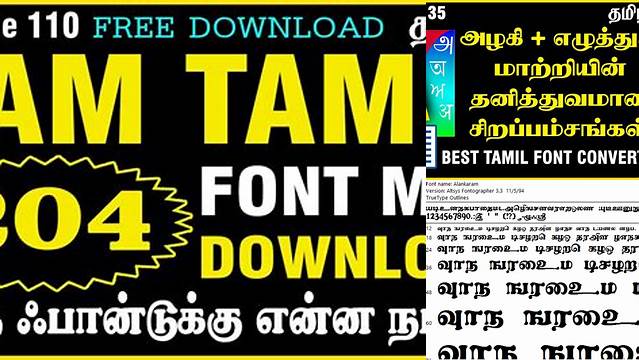
Tamil Fonts For Photoshop CS6: Free Download Guide
Are you looking to enhance your design projects with authentic Tamil typography? Finding the right Tamil fonts for Photoshop CS6 can significantly elevate your creative work, adding a touch of cultural richness and linguistic precision. In this article, we'll explore where to find these fonts, how to install them, and some tips for using them effectively in your designs. Let's dive in!
Why Use Tamil Fonts in Photoshop CS6?
Using Tamil fonts in Photoshop CS6 opens up a world of creative possibilities. Whether you're designing posters, brochures, or digital content, incorporating Tamil script can add a unique and culturally relevant dimension to your projects.
- Cultural Authenticity: Utilizing authentic Tamil fonts ensures that your message resonates with the target audience, respecting and celebrating their linguistic heritage.
- Enhanced Visual Appeal: A well-chosen Tamil font can significantly enhance the visual appeal of your designs, making them more engaging and memorable.
- Improved Readability: Selecting fonts that are clear and legible is crucial for effective communication. The right Tamil font can make your text easy to read and understand.
- Versatility: With a variety of Tamil fonts available, you can find the perfect one to match the tone and style of your design, whether it's traditional or modern.
By incorporating high-quality Tamil fonts, you not only pay homage to the Tamil language but also ensure your designs stand out with a distinctive and professional touch. Whether you’re working on branding, advertising, or personal projects, the right font can make all the difference.
Using Tamil Fonts Effectively in Photoshop CS6
Now that you have your Tamil fonts installed, let's explore how to use them effectively in Photoshop CS6 to create stunning designs:
Incorporating Tamil fonts into your Photoshop CS6 projects can significantly enhance their cultural relevance and visual appeal. By following the steps outlined in this article, you can find, install, and use Tamil fonts effectively to create stunning designs. Remember to choose the right fonts, pay attention to typography details, and troubleshoot any issues that may arise. With a little practice and attention to detail, you can create designs that are both beautiful and meaningful. So go ahead, explore the world of Tamil typography and elevate your creative work!